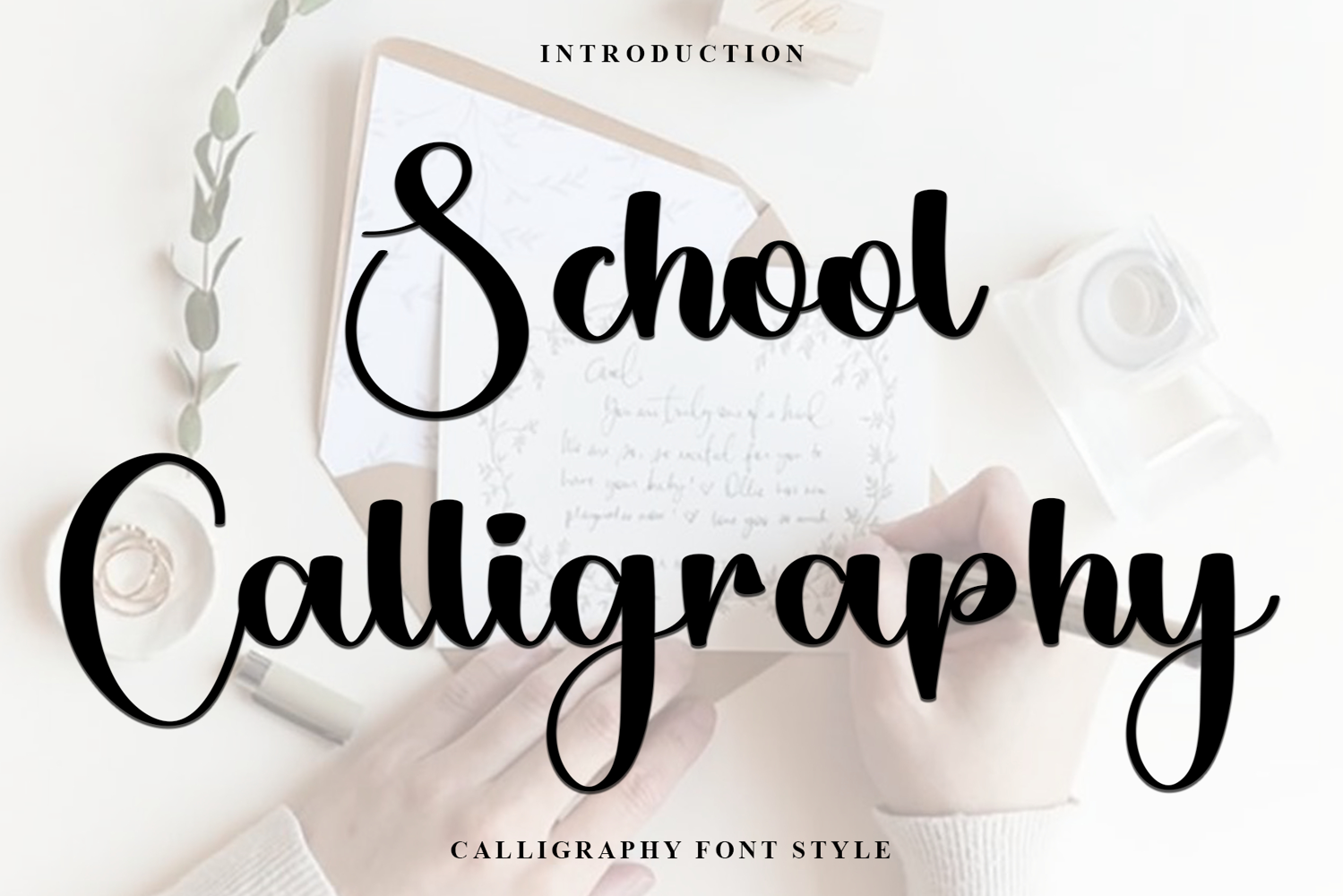
School Calligraphy
School Calligraphy is a beautiful and eye-catching font designed with a soft, unique touch. Its distinctive strokes give it a special character, making it meaningful and versatile for future use. With various characters, it’s perfect for design projects, crafts, and other creative works.